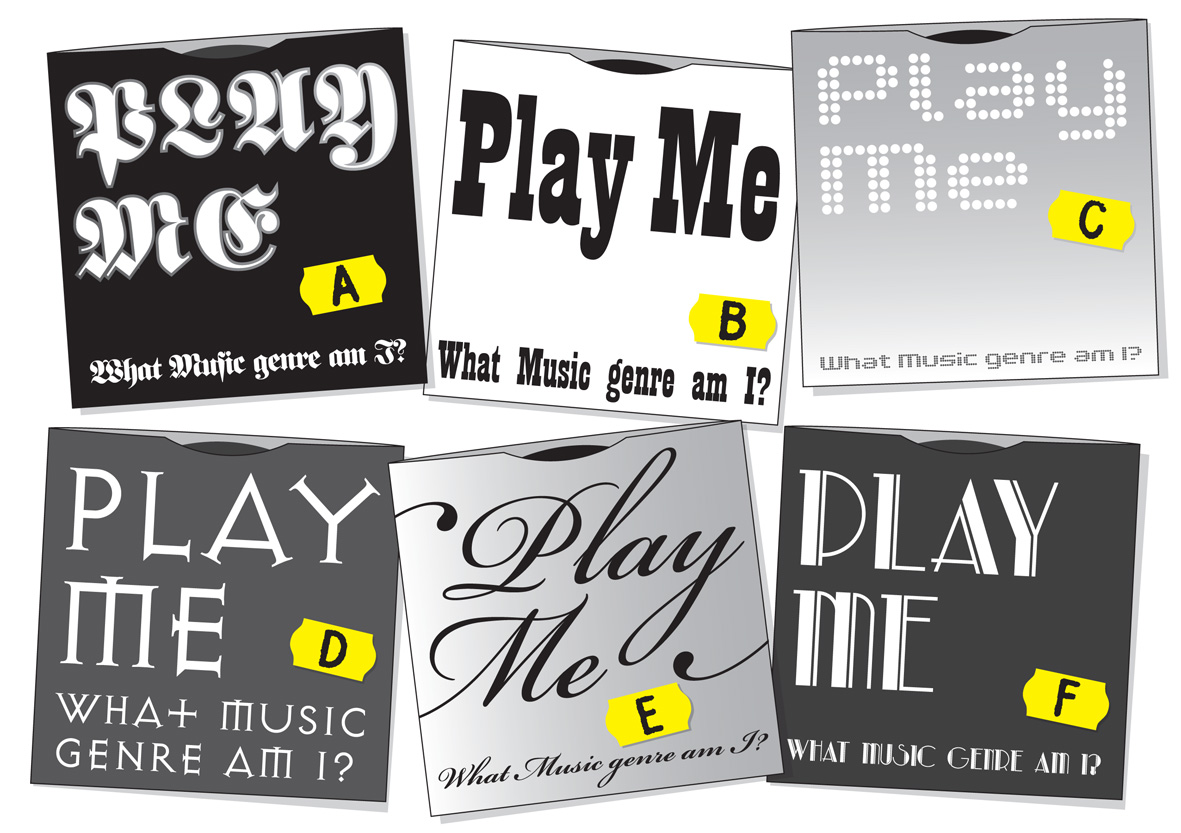
Creative Lockdown Project: Music alphabet
Challenge
What music has been the soundtrack to your time in lockdown? Draw, photograph or take screengrabs of the letters from the names of your favourite bands or album covers. Combine these to make up a word or phrase that describes how the music has made you feel at this time of social distancing.
Results
What Music am I?
We are surrounded by fonts in our everyday lives and we use them to navigate our environment, understanding instinctively that they communicate a great deal of the information before we’ve even read the words. We choose typefaces to express our personal style or to demonstrate our allegiance to a philosophy, music style or band.
Which type of music would you expect to hear when you play each of the records above?